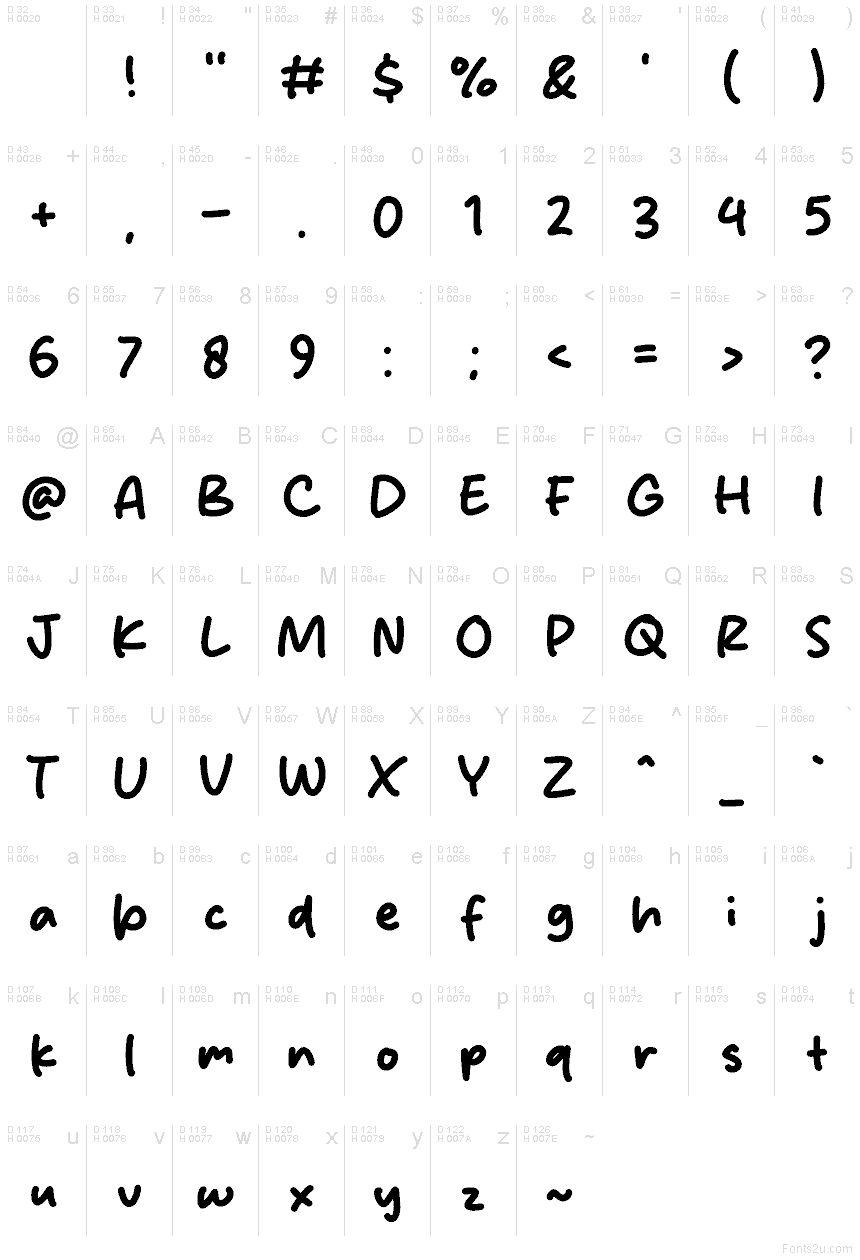
Miracle Queen
Miracle Queen font by Origin Type is a free handwritten font that feels like a thick marker gliding over smooth paper. Its rounded letters, even rhythm, and slightly bouncy baseline give it a warm, energetic tone that’s friendly without turning childish. The bold strokes hold up well at smaller sizes, so your words stay clear and chunky, like fresh ink that hasn’t had time to fade.
Using Miracle Queen, you can bring a playful edge to kids’ products, birthday invitations, quote posts, YouTube thumbnails, classroom materials, and casual logos. This free font shines when you want headlines that feel spoken aloud, not typed. Pair it with a clean sans serif for body text, and let Miracle Queen handle the fun, attention-grabbing moments in your layouts.